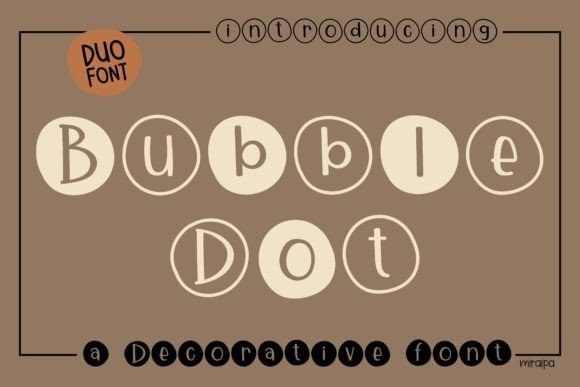
Have you ever been working on a project and suddenly, the right font pops into your mind? It’s like the missing piece of the puzzle, and everything falls into place. For many designers, this moment is a game-changer. It’s the moment when you know you’ve found the perfect font to bring your vision to life.
This is exactly what happens when you discover the Bubble Dot Font. A cute and adorable display font, it’s perfect for a variety of projects, from crafts to digital design, presentations, and even greeting cards. With its playful and whimsical feel, it’s no wonder why many designers are falling in love with this font. Whether you’re a seasoned pro or a beginner, the Bubble Dot Font is a valuable addition to your design toolkit, offering endless possibilities for creativity and self-expression.
Bubble Dot Font Key Features
- Unique Characteristics: Bubble Dot Font features a unique, playful design with rounded shapes and subtle curves, creating a whimsical and engaging visual effect.
Bubble Dot Font Review
The Bubble Dot Font is a playful, whimsical font that can add a touch of fun to any design project. ✨ I particularly like the way the rounded shapes and bubbly details interact with each other, creating a visually appealing effect. The font is versatile and can be used for a variety of applications, from children’s books to advertising materials.
One of the things that stands out about Bubble Dot Font is its customizability. The font comes with a range of different styles and weights, allowing designers to tailor the look to their specific needs. This is especially useful for projects that require a consistent visual identity.
While the Bubble Dot Font is generally well-suited for most design projects, there are some limitations to be aware of. ⚠️ For example, the font may not be suitable for use in situations where a more formal or serious tone is required. Additionally, the font’s rounded shapes and bubbly details can sometimes make it difficult to read, particularly in smaller text sizes.
Overall, I think the Bubble Dot Font is a great choice for designers looking to add a touch of whimsy to their projects. While it may not be suitable for every situation, its customizability and versatility make it a valuable addition to any design toolkit.
- Playful, whimsical design
- Customizable styles and weights
- Versatile and suitable for a range of applications
- May not be suitable for formal or serious projects
- Can be difficult to read in smaller text sizes
Bubble Dot Font Practical Application Guide
To get the most out of the Bubble Dot Font, try the following:
- Use it to create visually appealing titles and headings.
- Pair it with other playful fonts to add visual interest.
The Bubble Dot Font is commonly used for:
- Children’s educational materials.
- Party invitations and decorations.
- Social media graphics and advertisements.
Q: Is the Bubble Dot Font suitable for use in print or digital applications?
The Bubble Dot Font can be used in both print and digital applications. However, due to its unique design, it may not be suitable for very small font sizes or high-resolution printing.